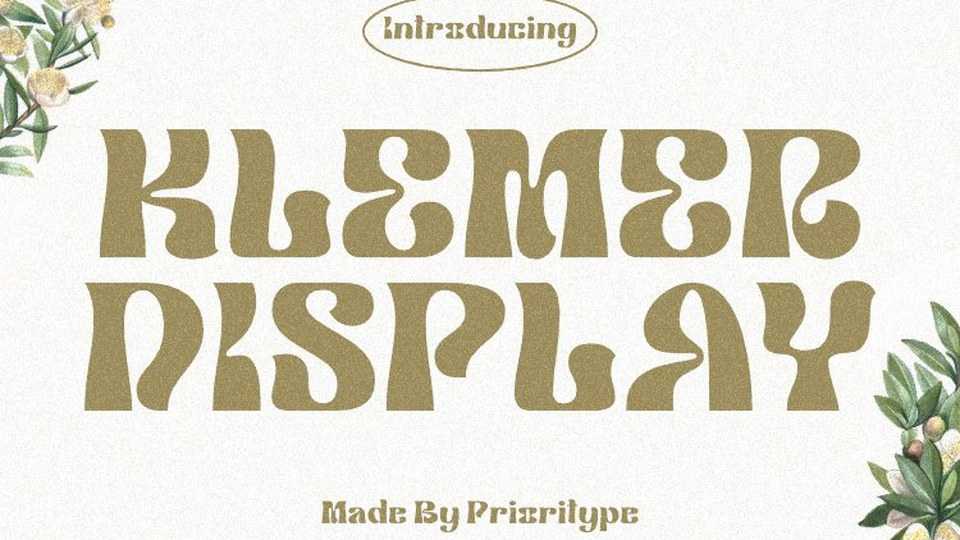
Download Klemer Display font, a typeface inspired by the psychedelic effect and simplified even more. Klemer Display is great for poster designs, logos, t-shirt designs or vintage and modern design themes.
Designer: Prioritype Co